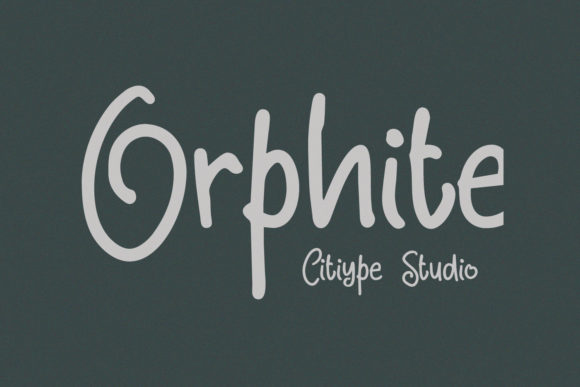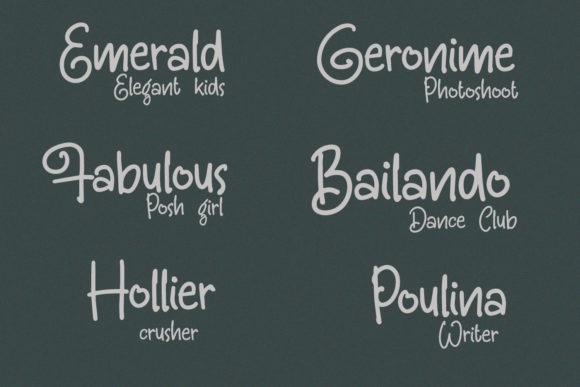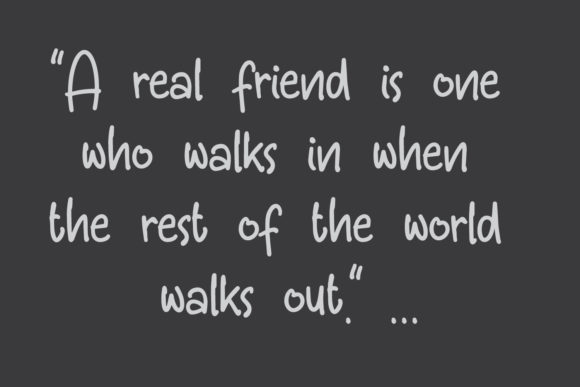
Orphite Font
About Orphite Font
Orphite is a neat lettered, friendly handwritten font. Its natural and unique style makes it incredibly fitting to a large pool of designs. The only limit is your imagination!